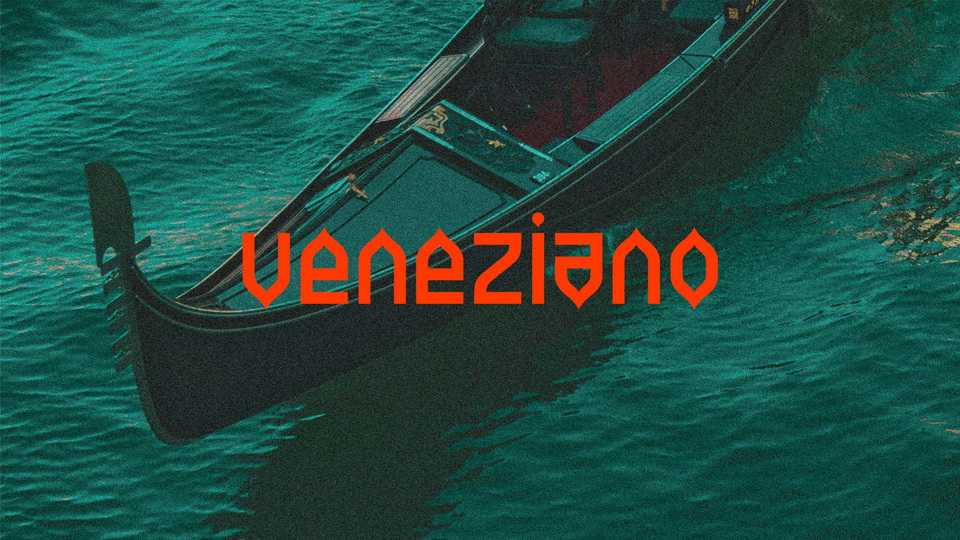
Download Veneziano font, a unique decorative typeface inspired by Venetian Gothic architecture. With its geometric shapes and smooth curves Veneziano font is ideal for posters, editorial use and typographic artworks.
Designer: Davide Fraccaroli